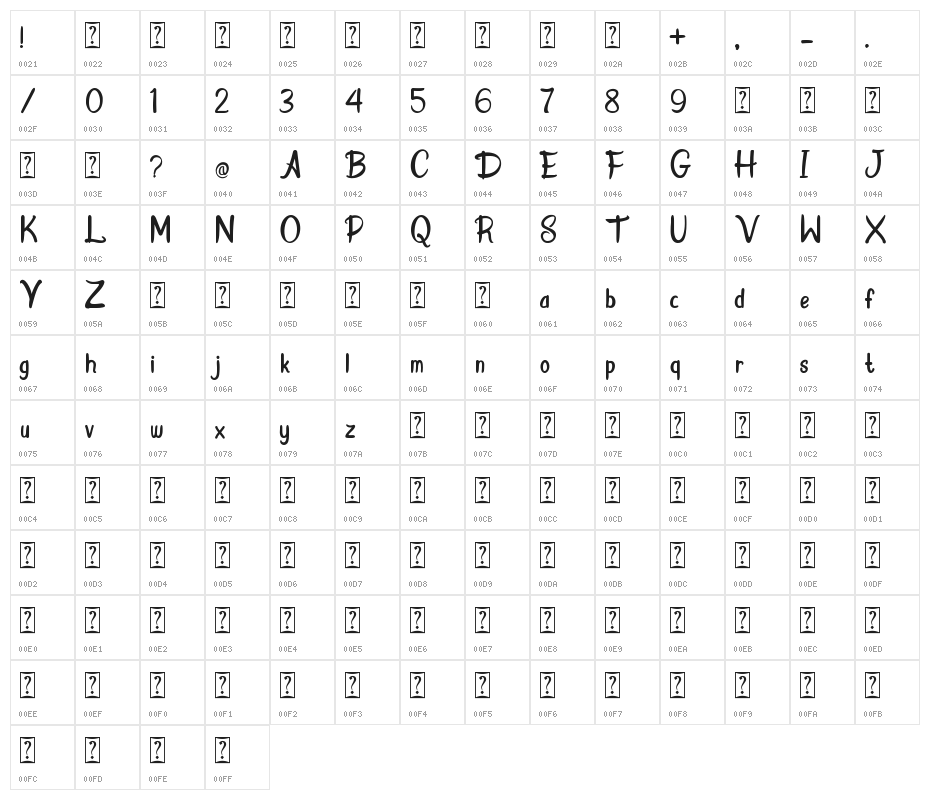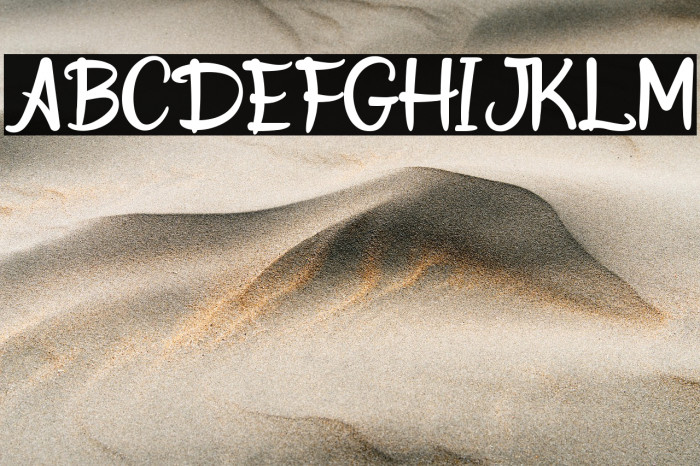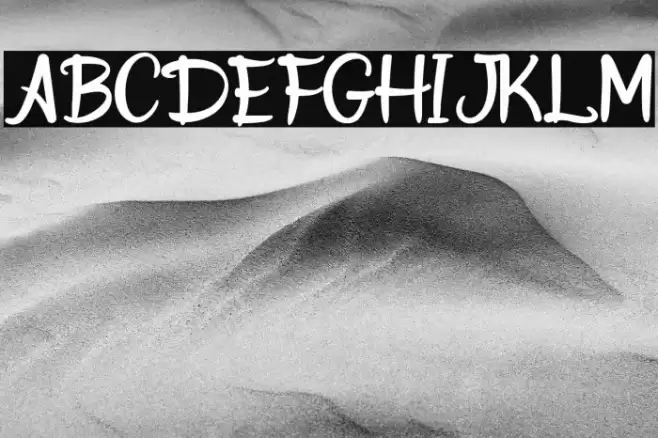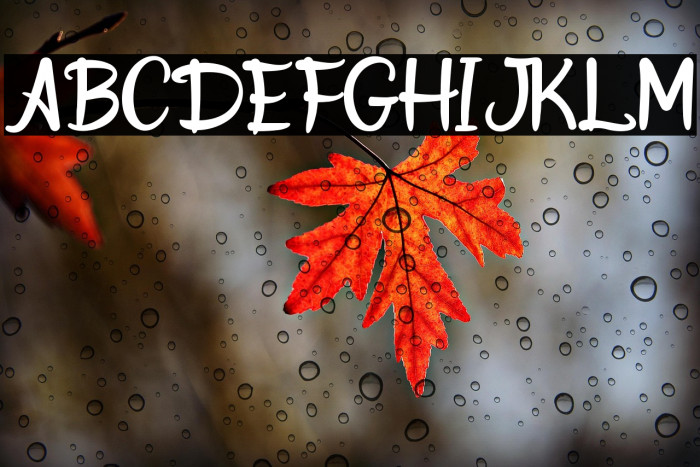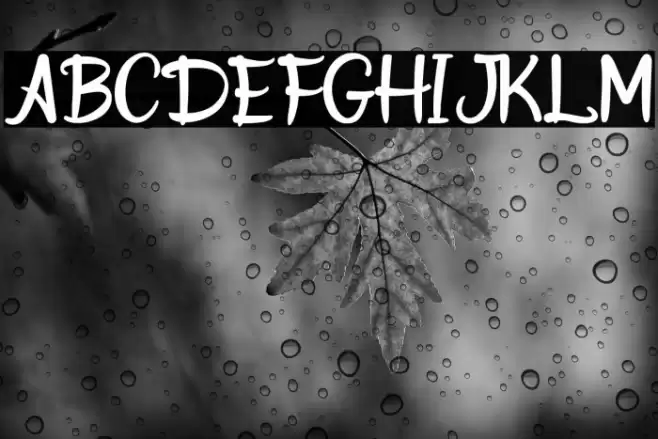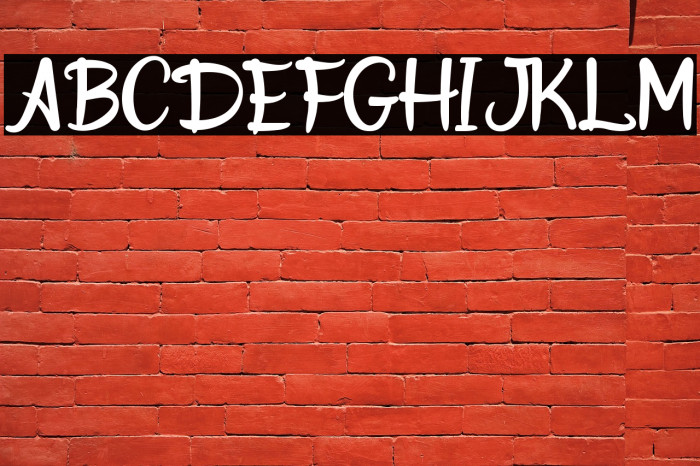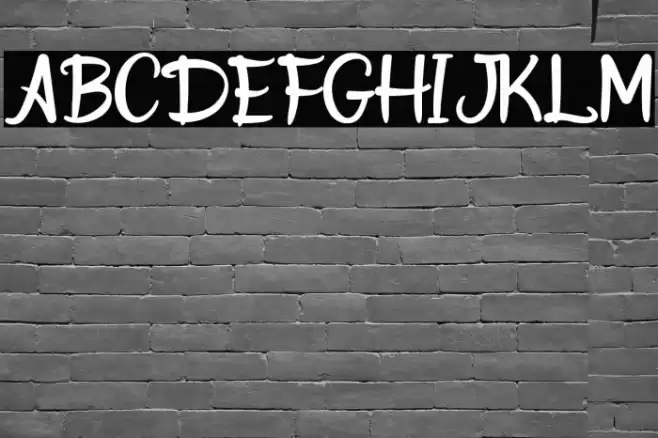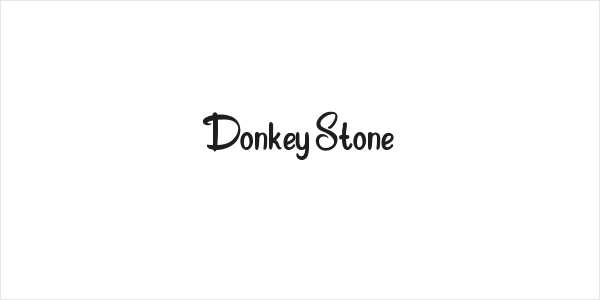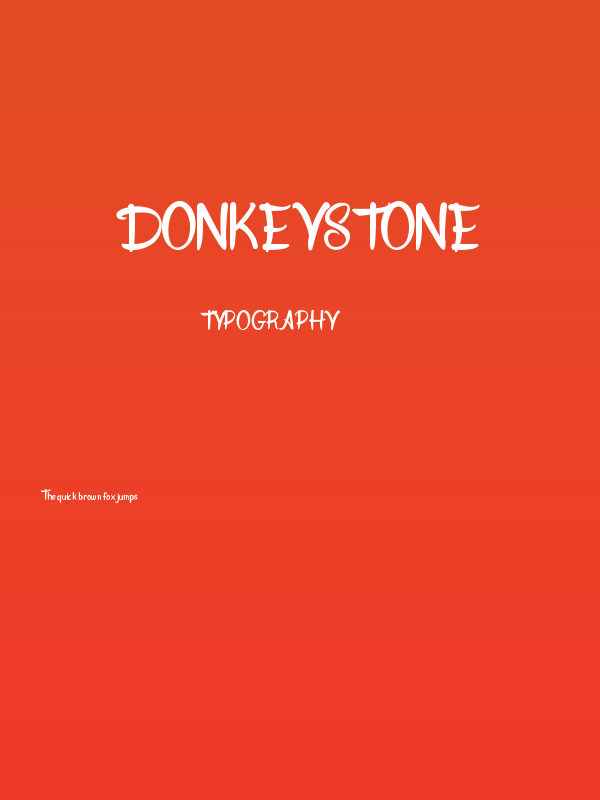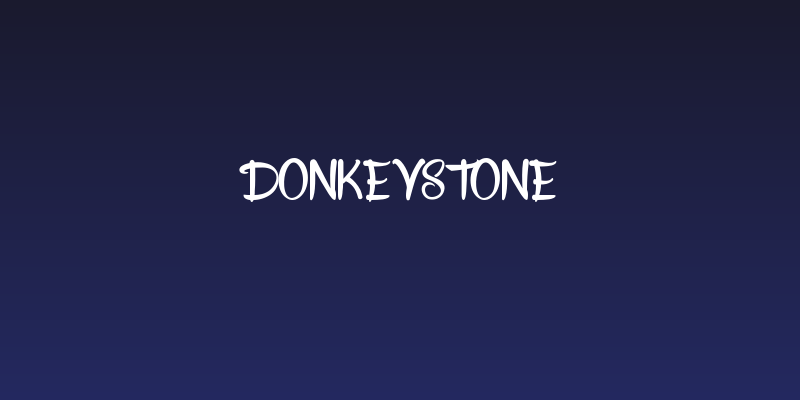
Donkey Stone Font
Donkey Stone Description
This font features a playful and whimsical style with a handwritten appearance. The characters are bold and rounded, giving a friendly and approachable feel. The uppercase letters are slightly larger and more pronounced, while the lowercase letters maintain a consistent flow. Numbers are clear and easy to read, matching the playful style of the alphabet. The special characters, such as punctuation marks, are designed to complement the overall aesthetic, adding to the font's charm. This font is ideal for projects that require a fun and informal touch.